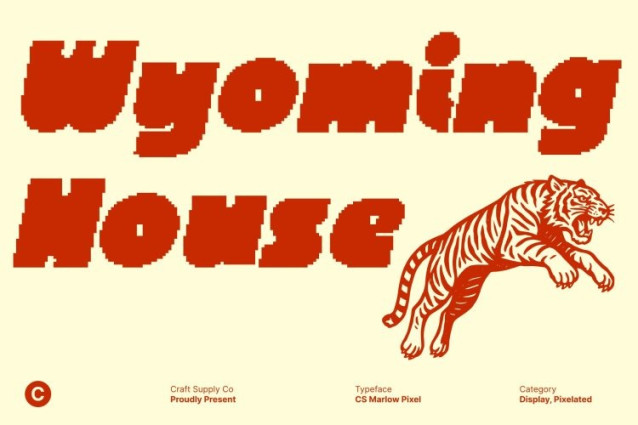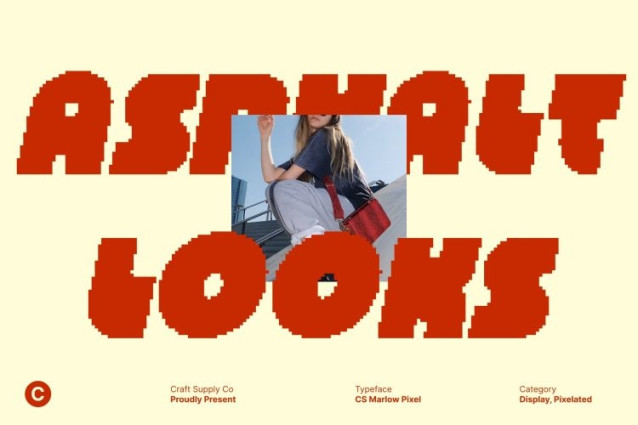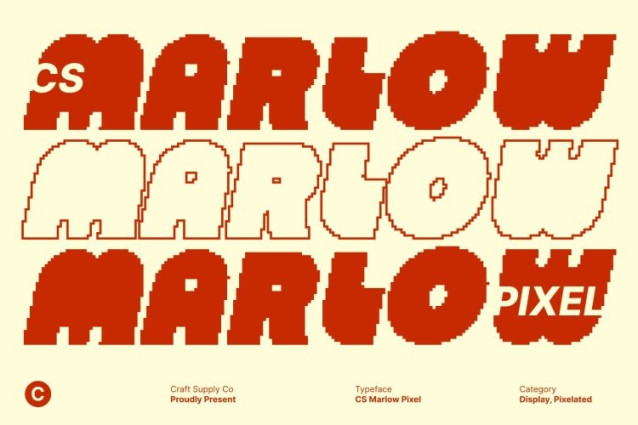
CS Marlow Pixel Font
CS Marlow Pixel Font This is a bold sans serif display font built to make an instant impact. Its strong, clean shapes create a powerful visual foundation, while a touch of funky character adds a playful twist. This energetic balance makes the font perfect for designers who want clarity, punch, and personality all in one expressive typeface.
Pixelated Style for Modern Digital Appeal
The pixel-inspired texture gives a distinctly modern and digital aesthetic. Every letter carries a crisp, tech forward structure that blends retro pixel charm with contemporary design sensibilities. This unique combination brings a dynamic, unconventional feel to projects that need a fresh twist without sacrificing boldness.
Perfect for Headlines, Posters, and Branding
Designed for maximum visibility, this font excels in display applications. Its thick forms and confident presence make it ideal for attention-grabbing headlines, high-impact posters, creative branding concepts, and digital artwork. Whether you’re crafting a bold title or building a distinctive visual identity, this font ensures your message stands out clearly and stylishly.
A Versatile Choice for Creative Expression
With its lively personality and digital-inspired sharpness, adapts to a wide range of creative uses from event designs and youth-oriented branding to funky editorial layouts and social media graphics. It brings unconventional flair wherever it’s placed, giving your designs a strong, modern, and memorable voice.